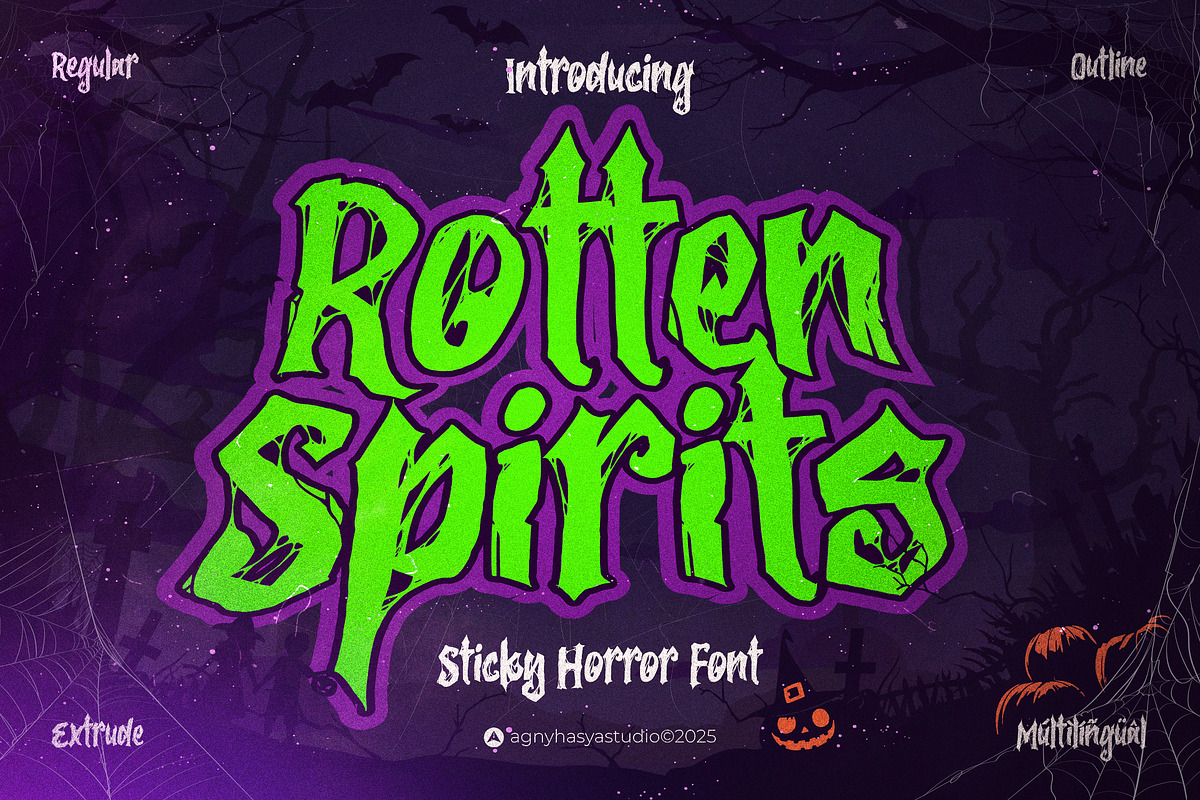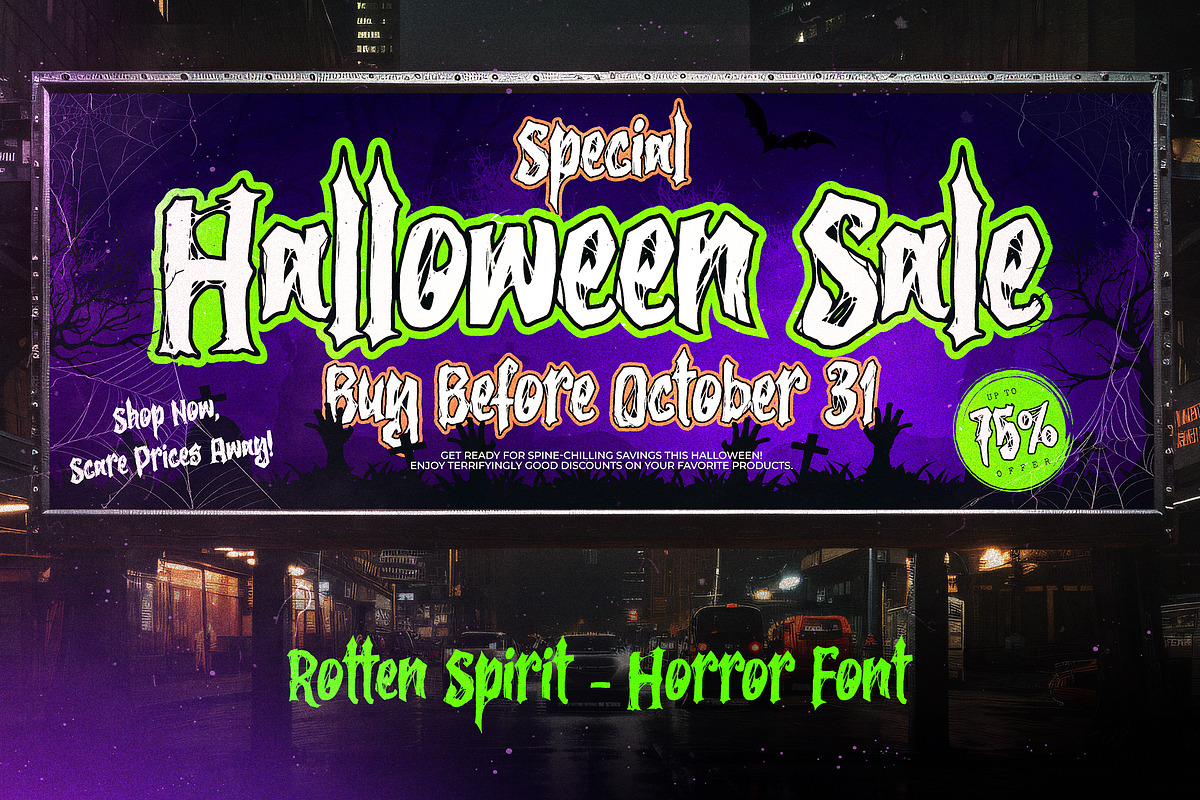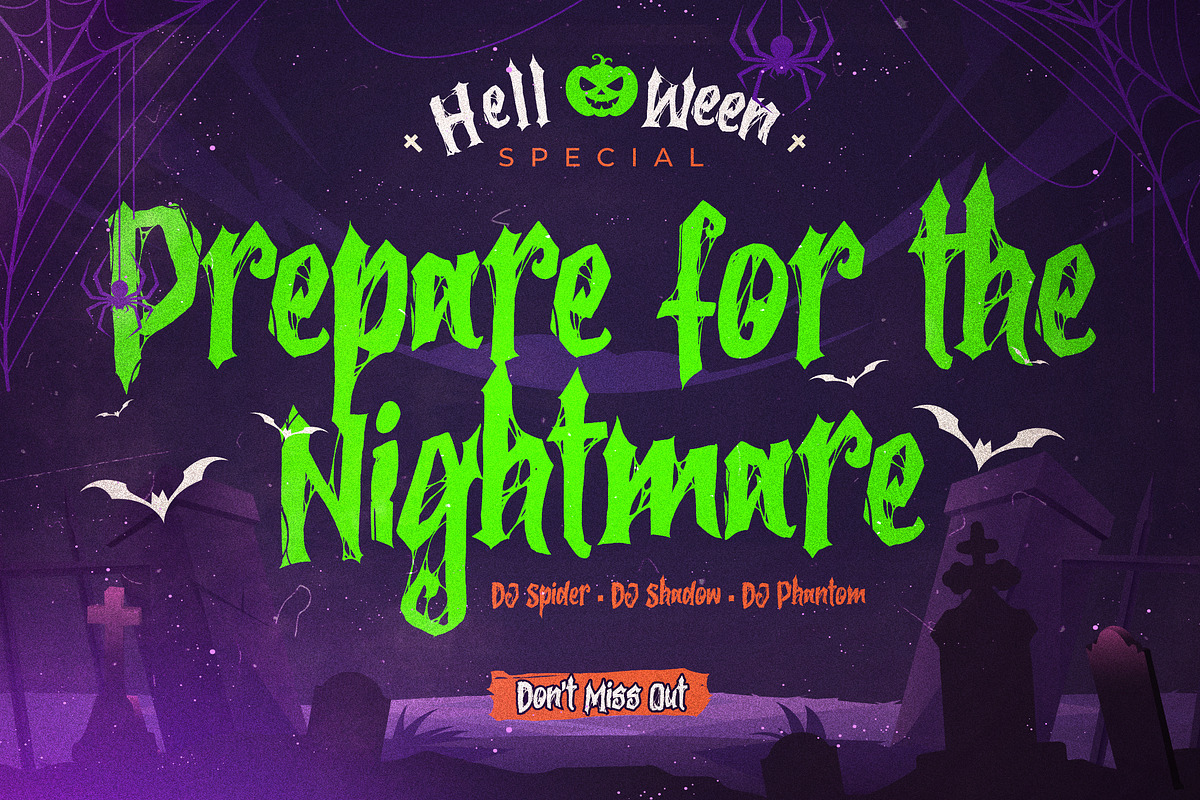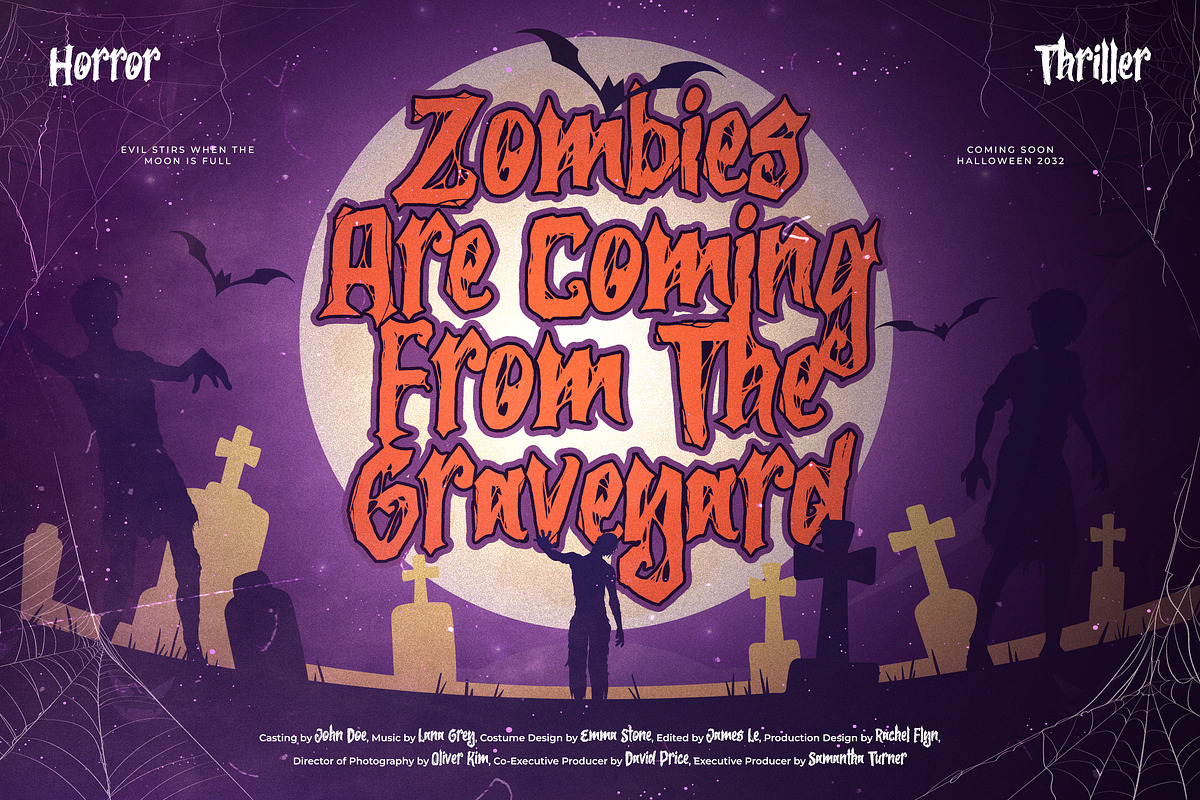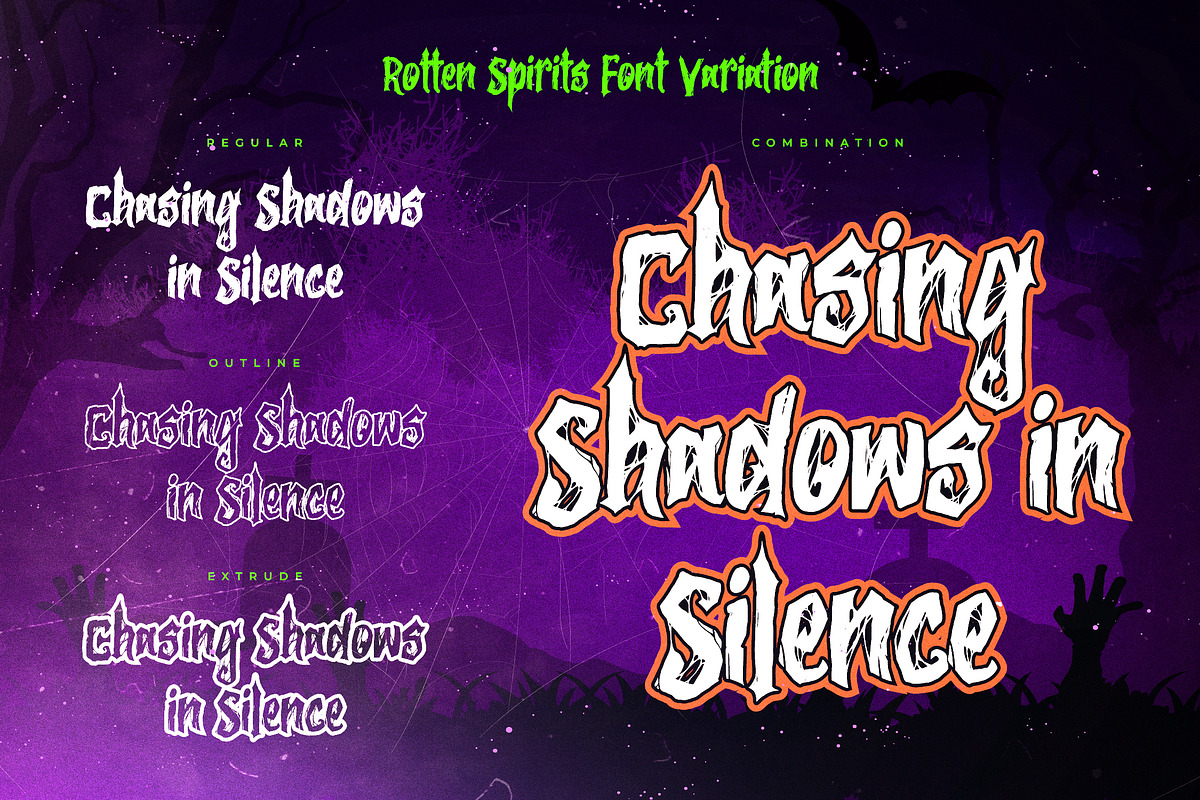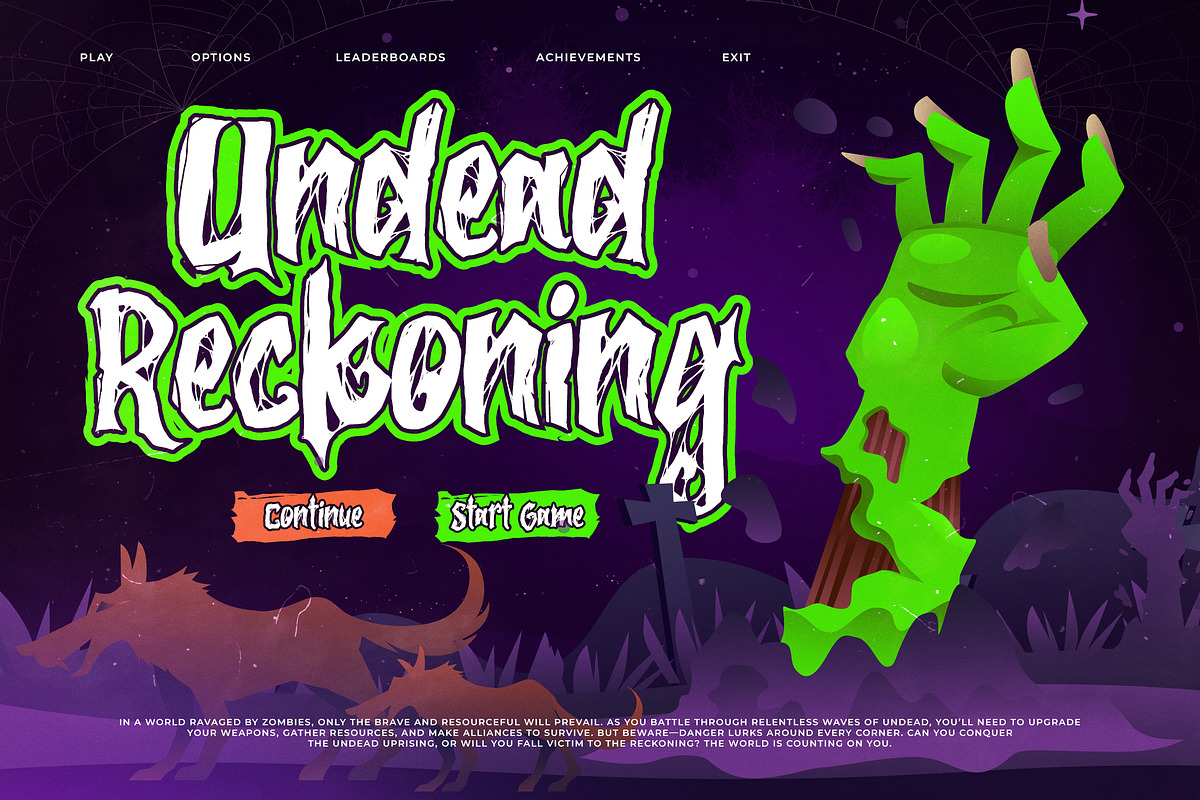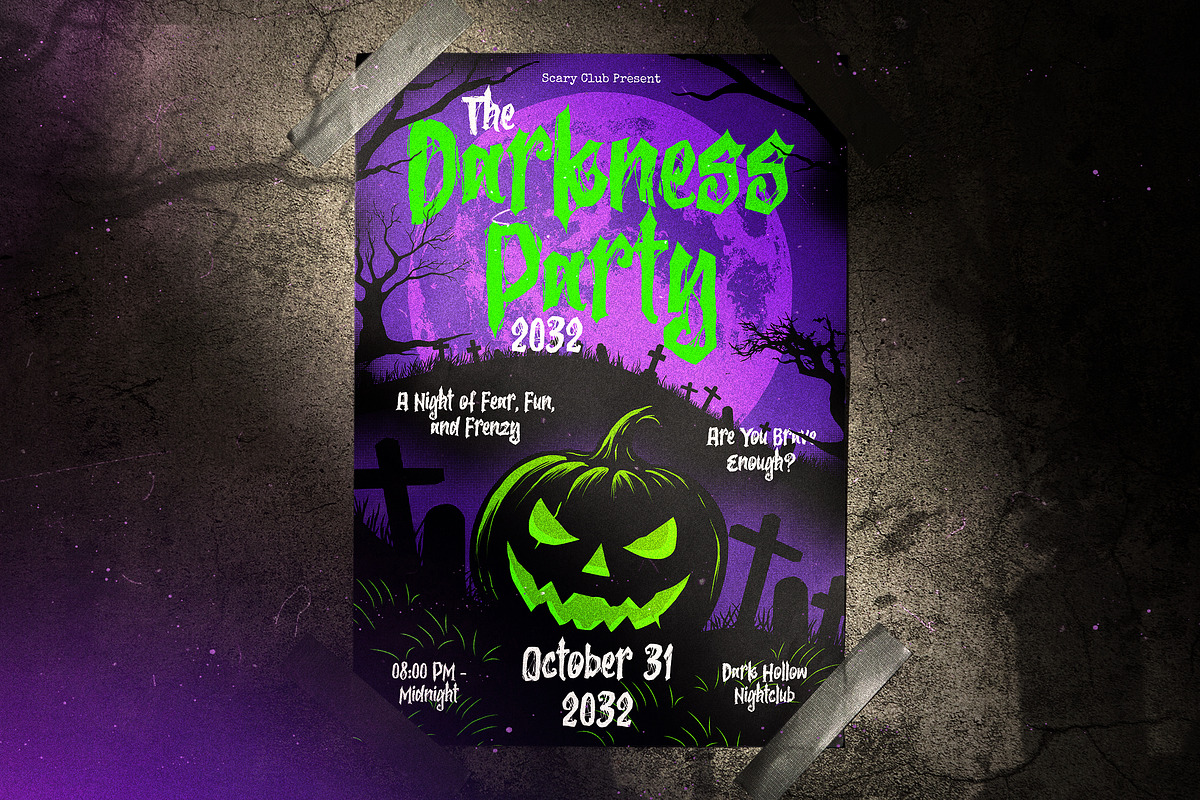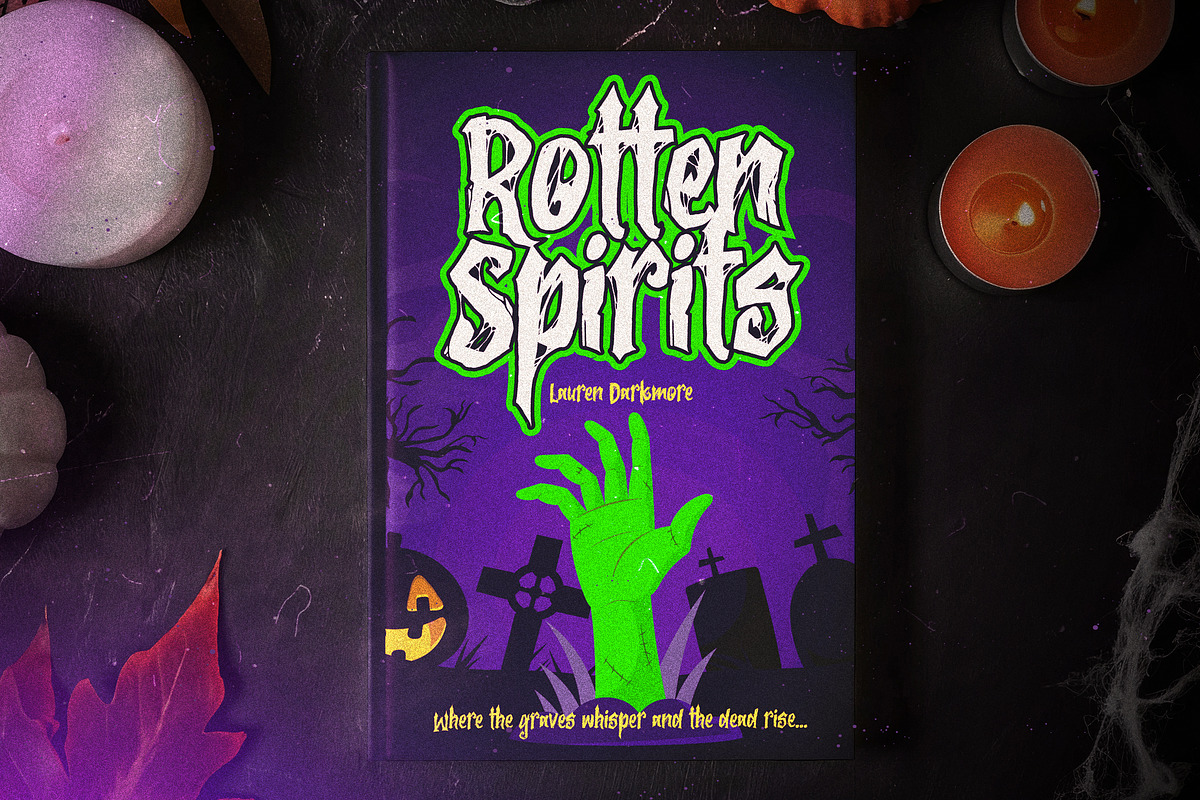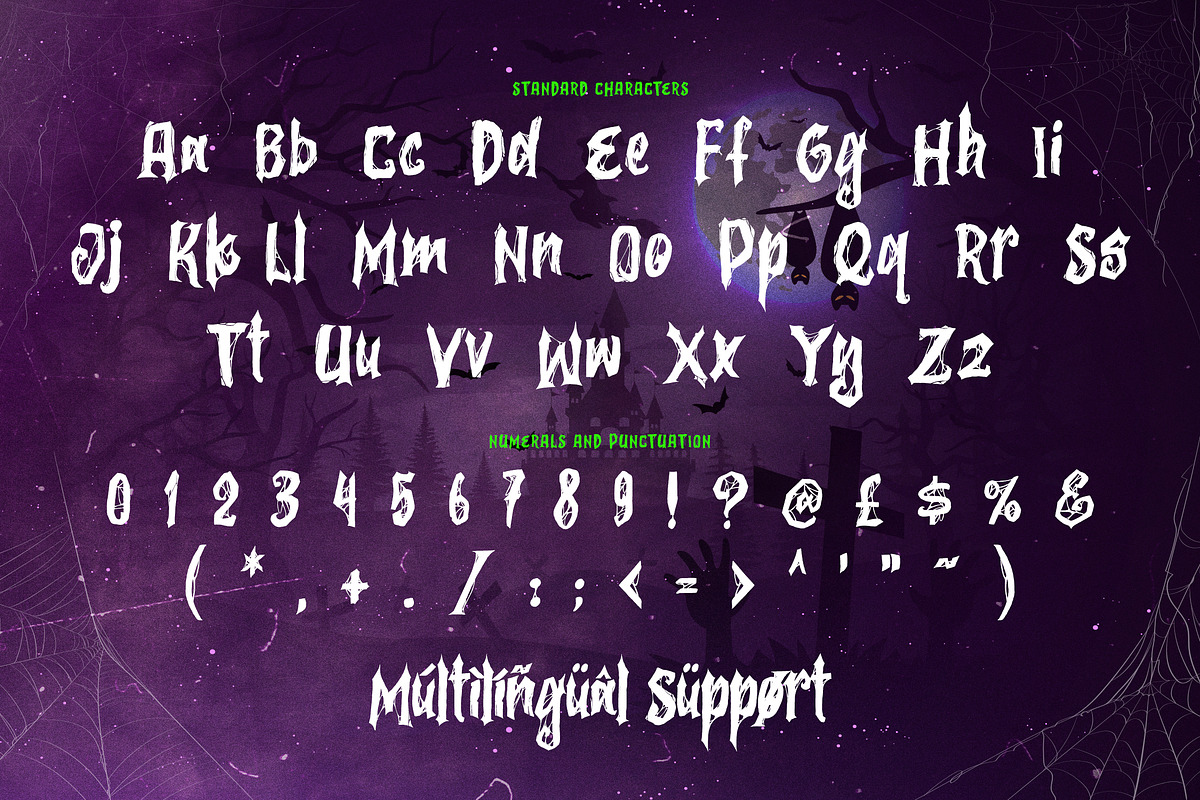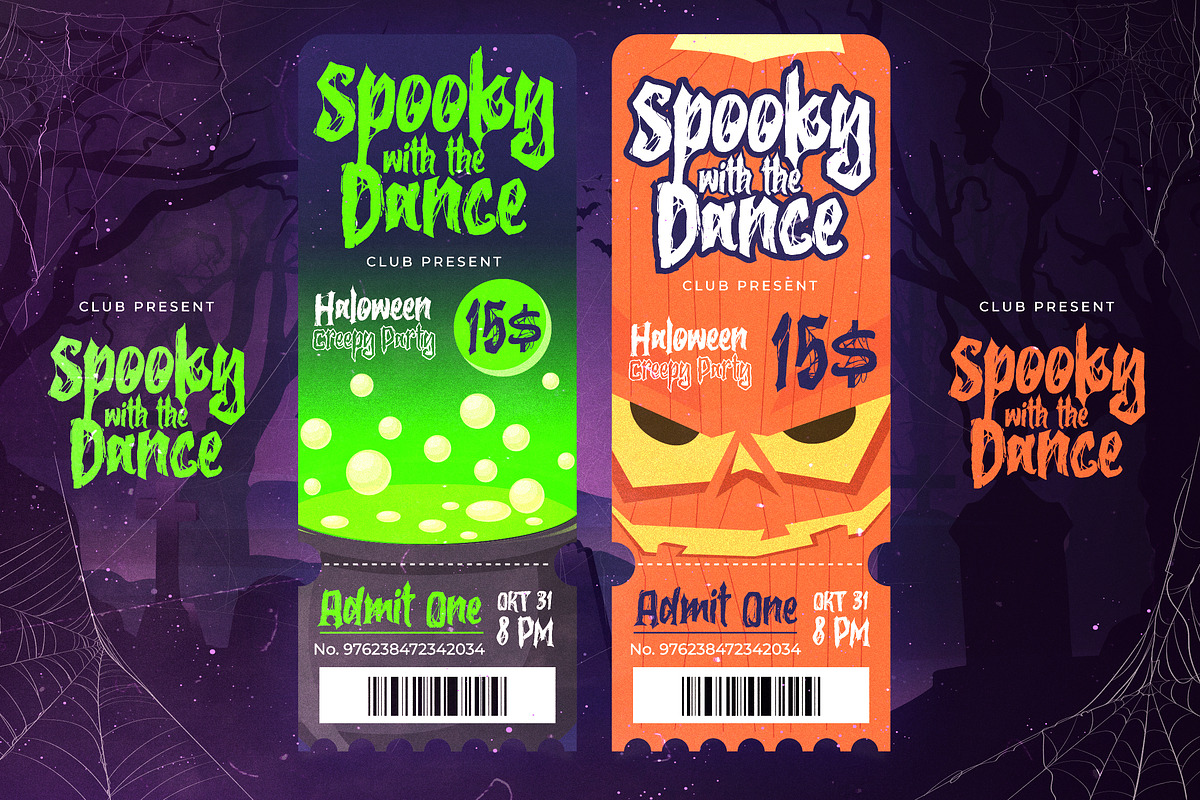
Rotten Spirits
Rotten Spirits is a sticky horror font and tangled with web-like details. Its eerie, dripping strokes crawl across the page as if spun straight from a spider’s lair, perfect for Halloween posters, spooky titles, creepy branding, and any design that needs a truly unsettling vibe.
Every character oozes with sticky, web-like energy and tangled threads that bring a sense of rot, decay, and crawling terror. From haunted invitations to monster-themed designs, this font transforms your work into a chilling spectacle of horror.
With three distinct styles Regular, Outline, and Extrude, Rotten Spirits gives you the power to mix, layer, and experiment for endless spooky combinations.